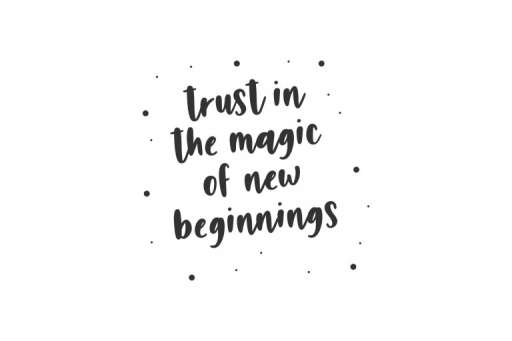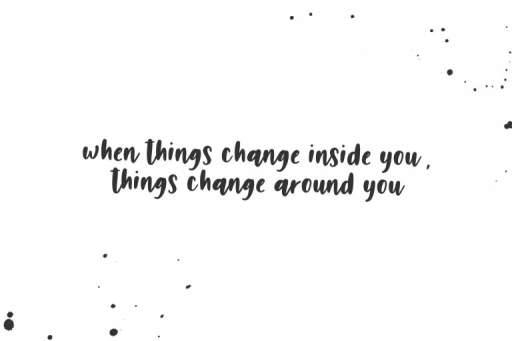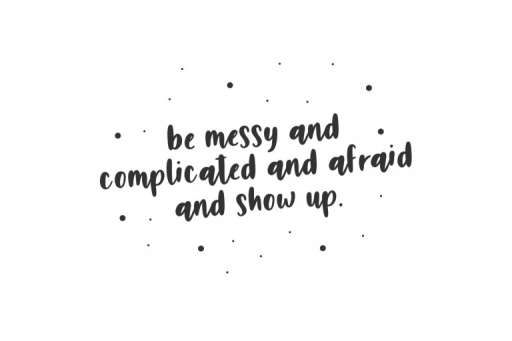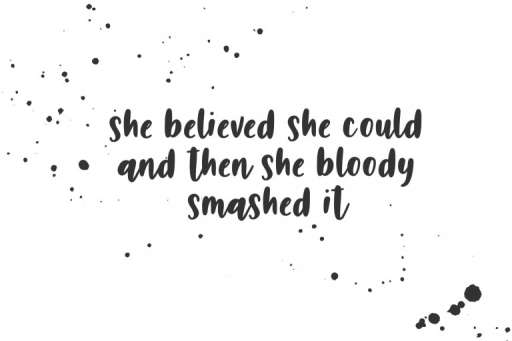
Marble – Handwritten Script Font
Marble is a handwritten script font. This Font is a great choice for books, social media, logo, packaging, branding, web, watermark, quotes, and much more!
Marble Features :
- Basic Latin A-Z and a-z
- Numbers and punctuation
- Multilingual